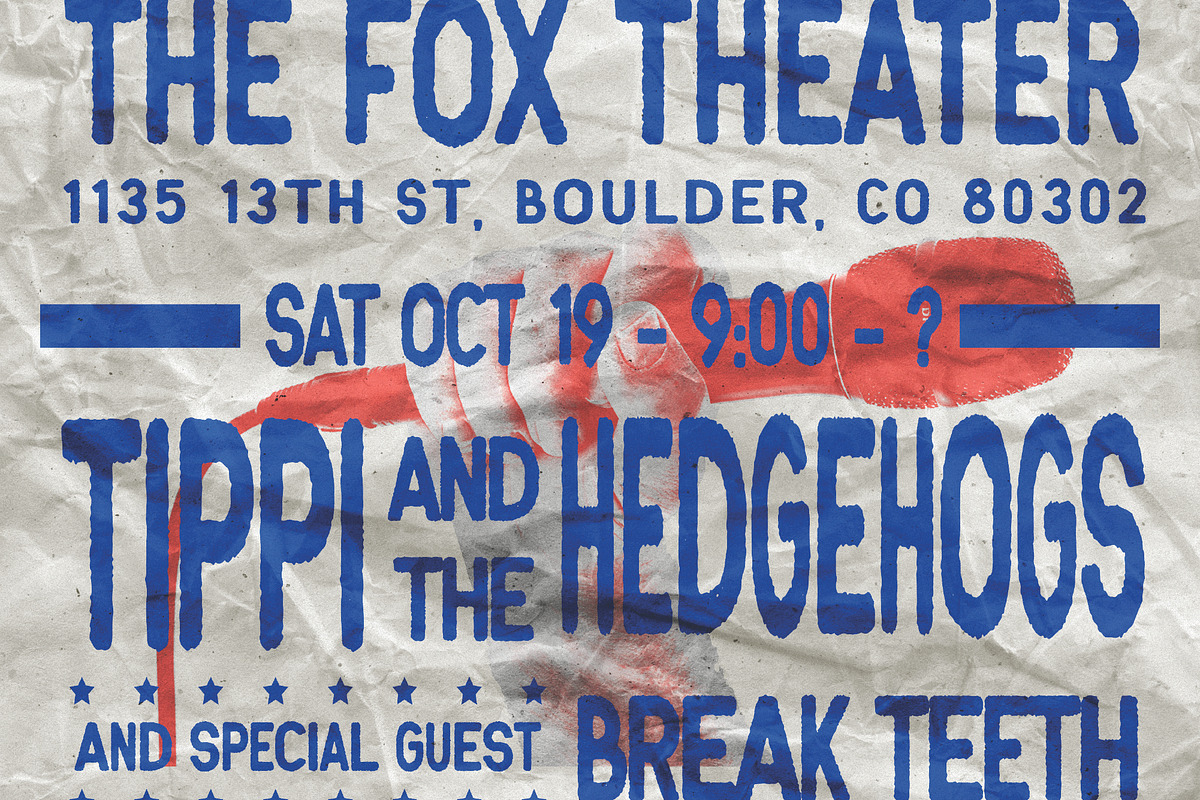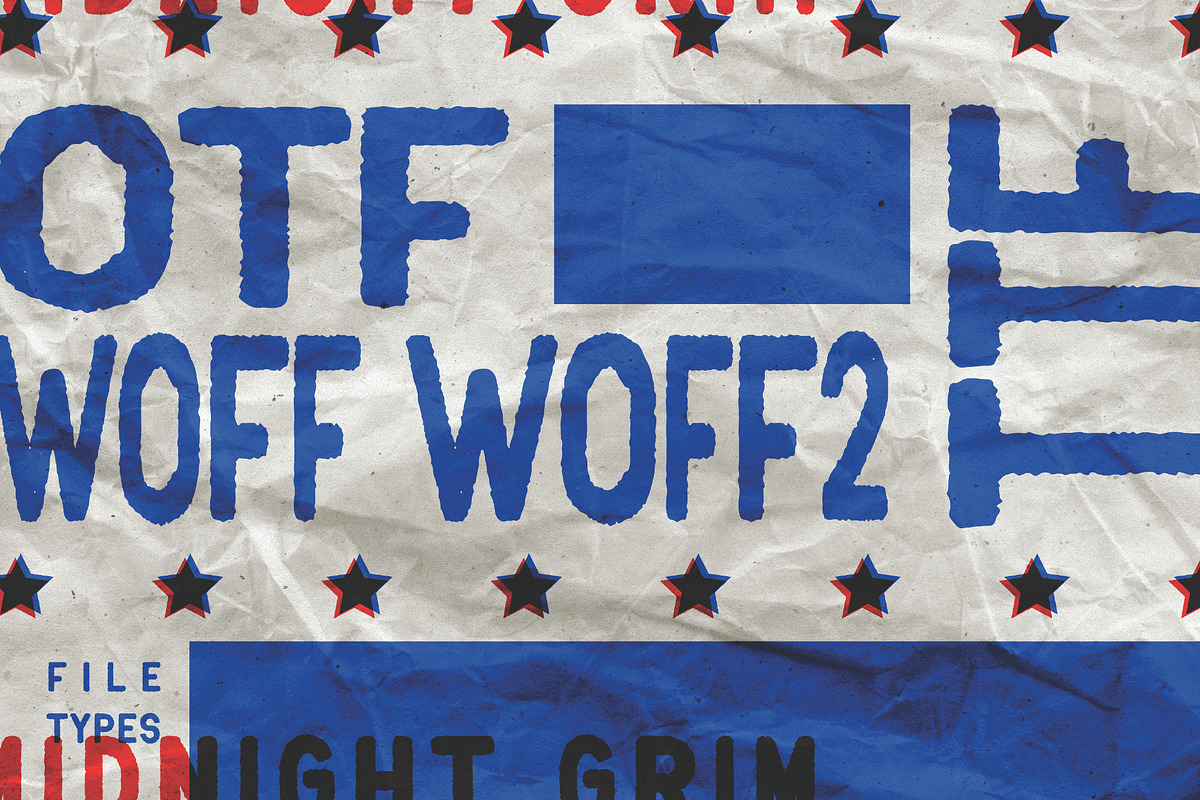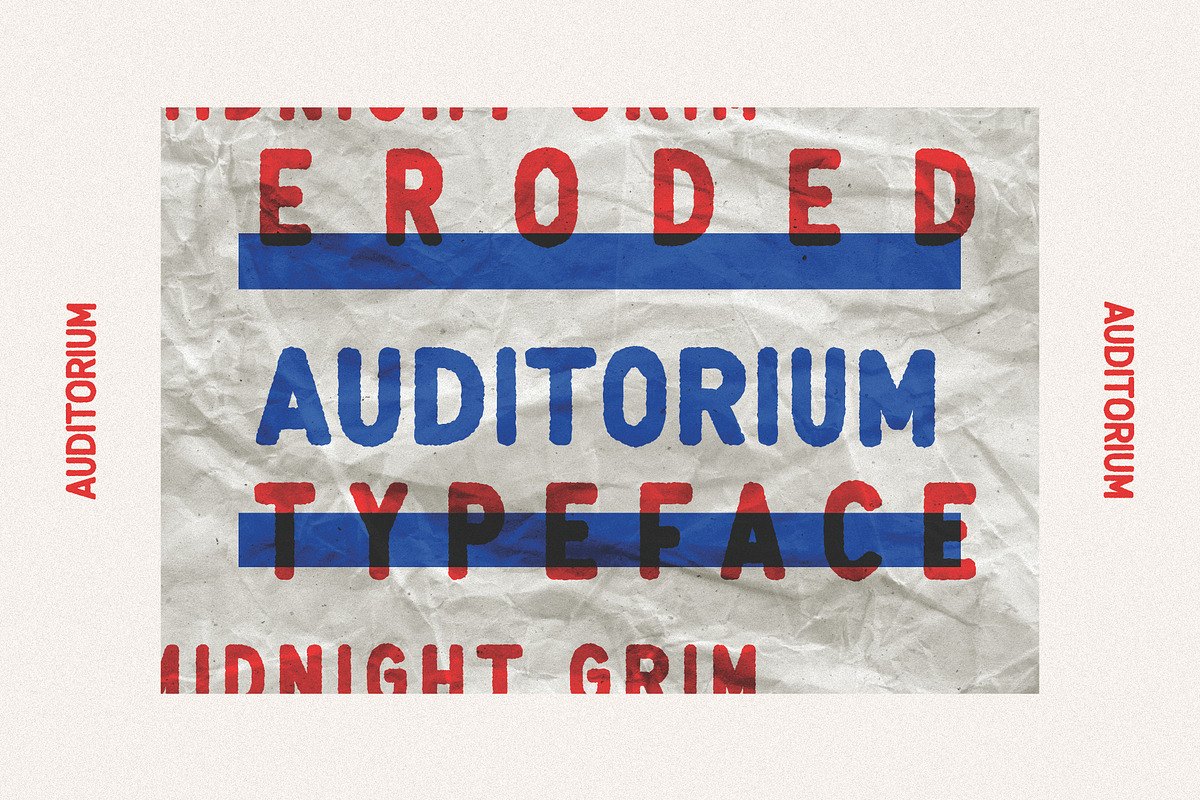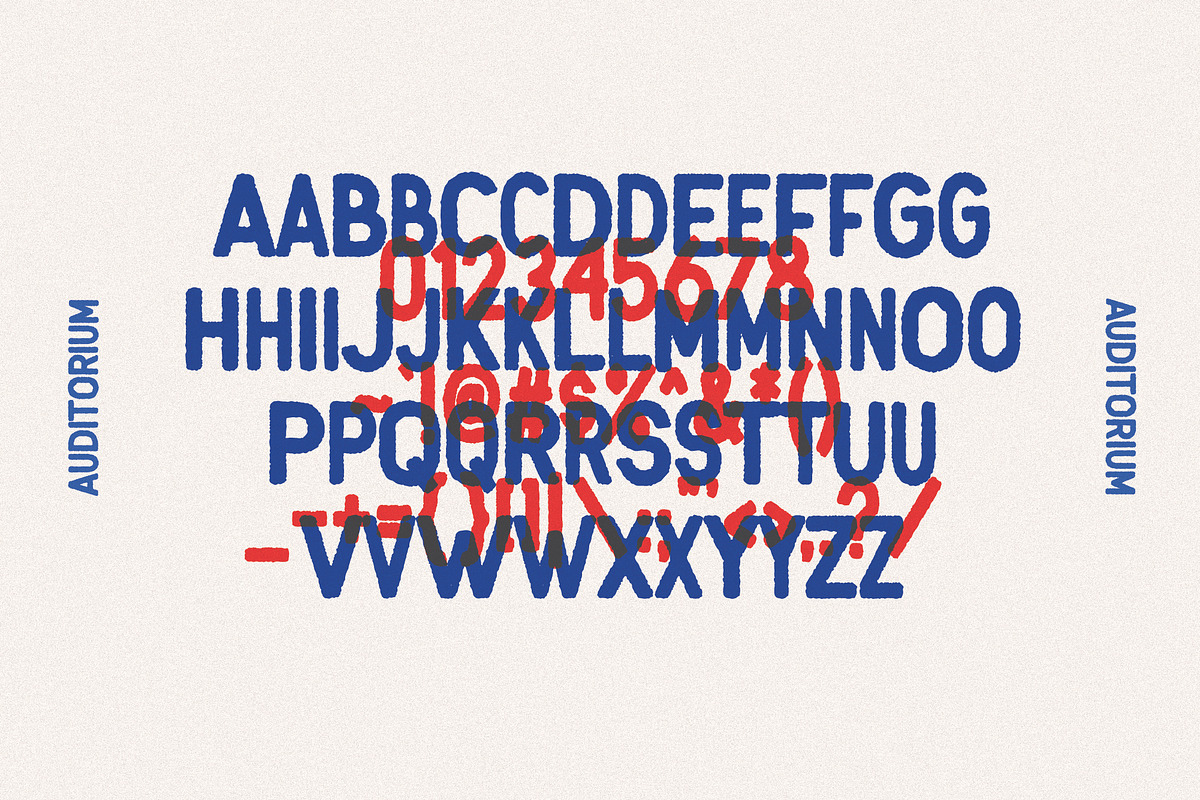
Auditorium
Auditorium is a dynamic eroded display font with multiple widths to elevate your designs - from branding, logos, and promotional materials, to instagram posts, invitations, and print-on-demand graphics.